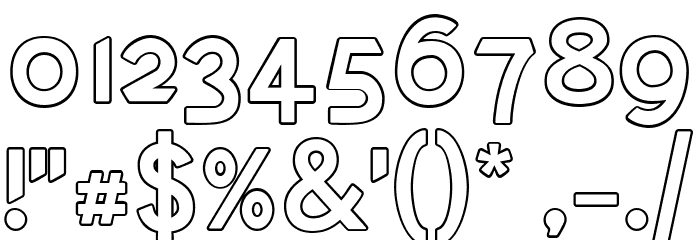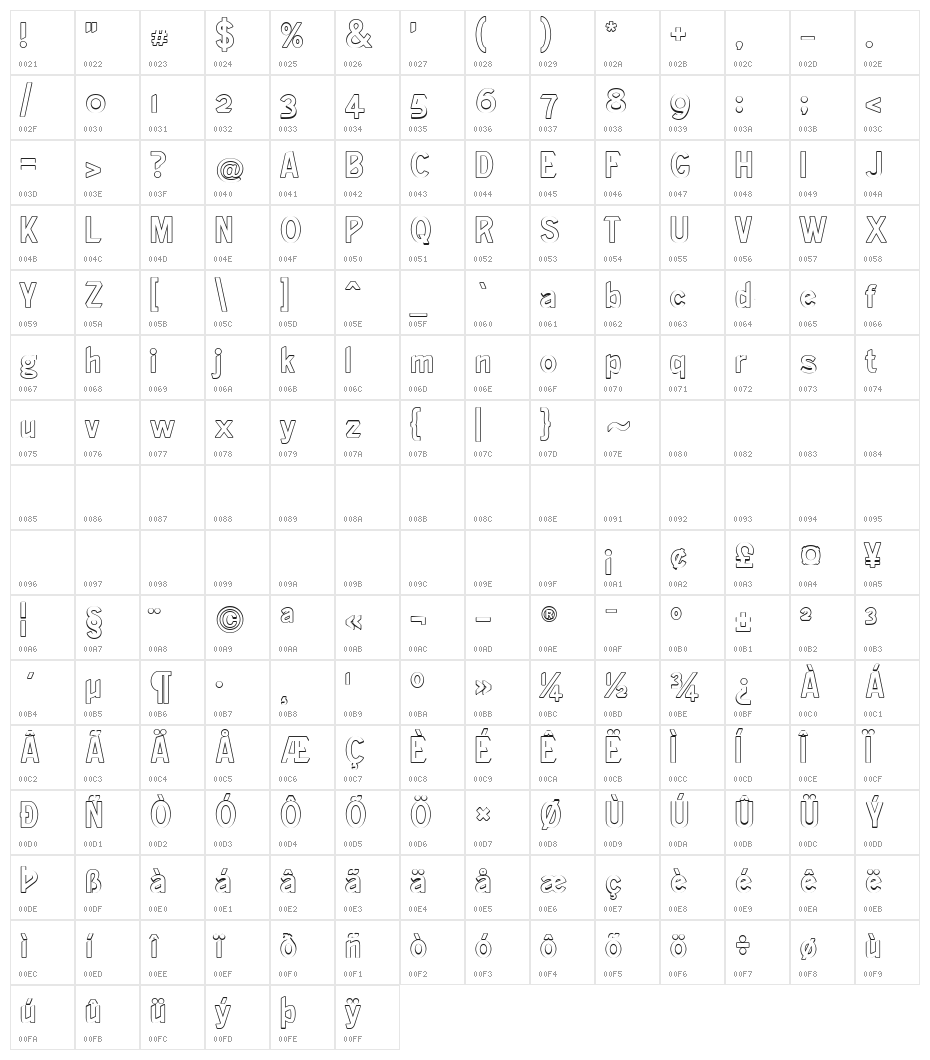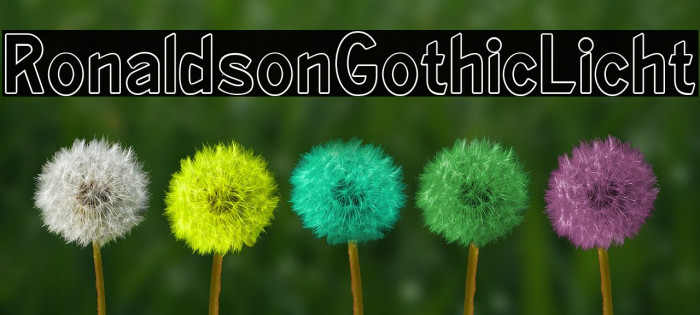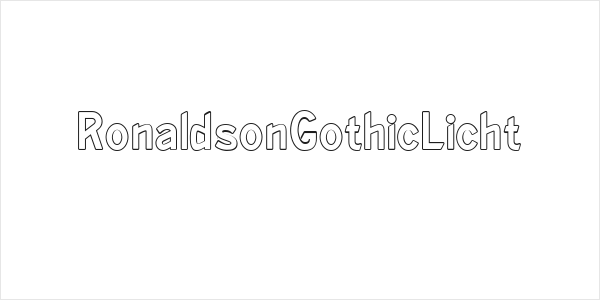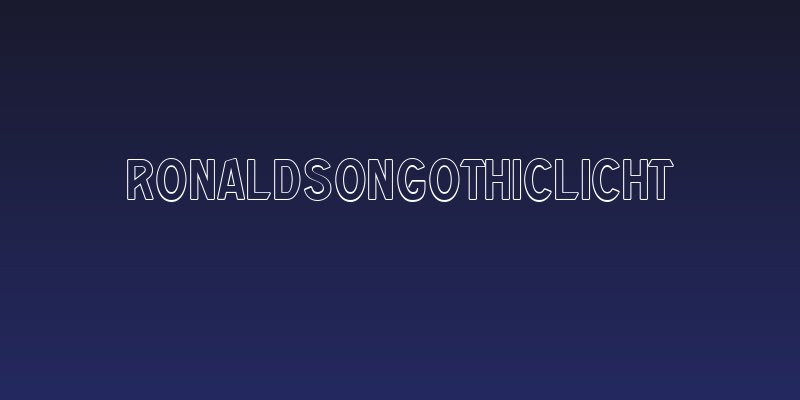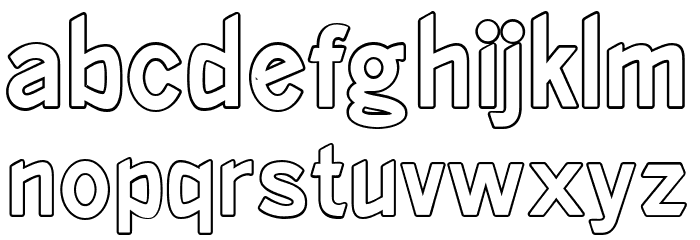
RonaldsonGothicLicht Font
RonaldsonGothicLicht Description
This font features a clean and modern sans-serif style with a distinct outline effect. The characters are bold and evenly spaced, providing a clear and legible appearance. The uppercase and lowercase letters maintain a consistent design, with rounded edges that soften the overall look. The numerals and special characters are designed to match the alphabet, ensuring a cohesive appearance across all text. This font's outline style gives it a unique and eye-catching quality, making it suitable for various design applications.